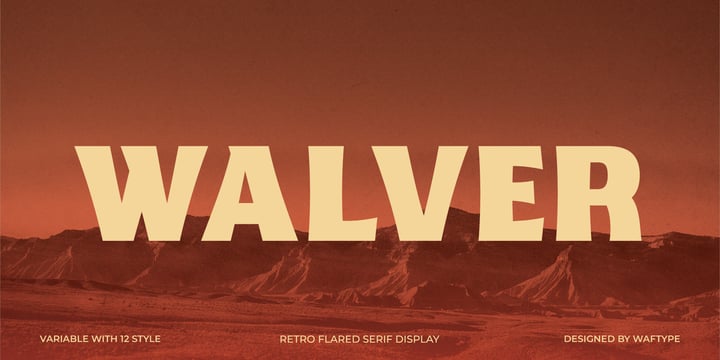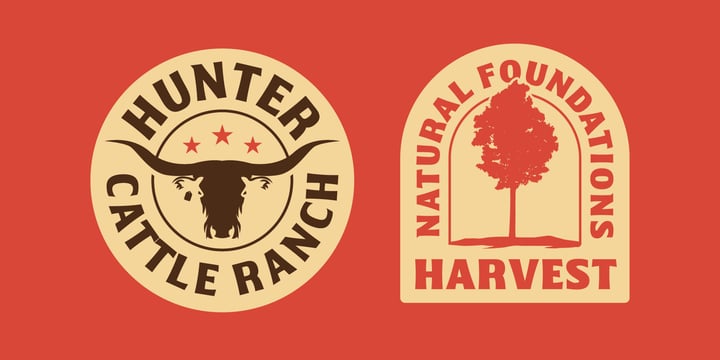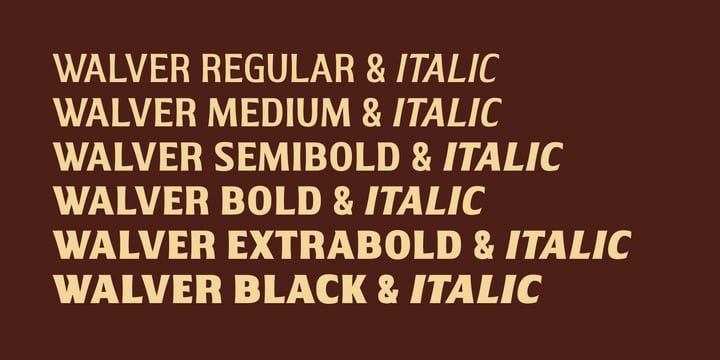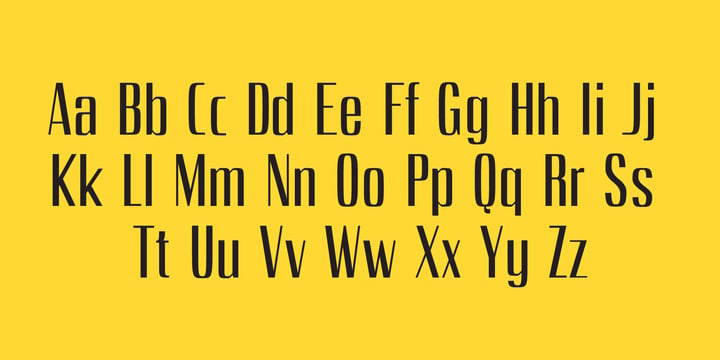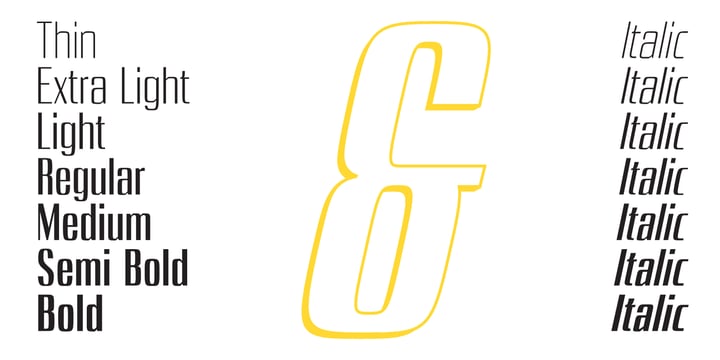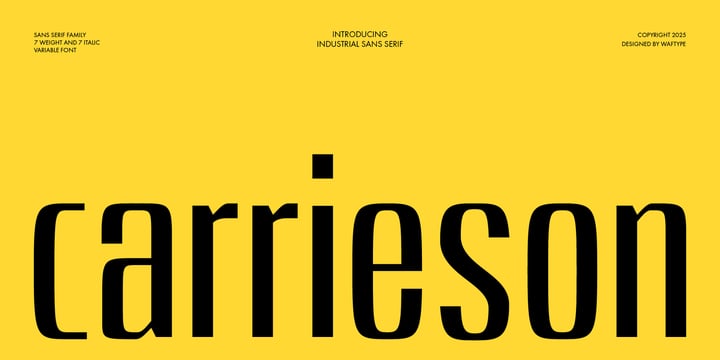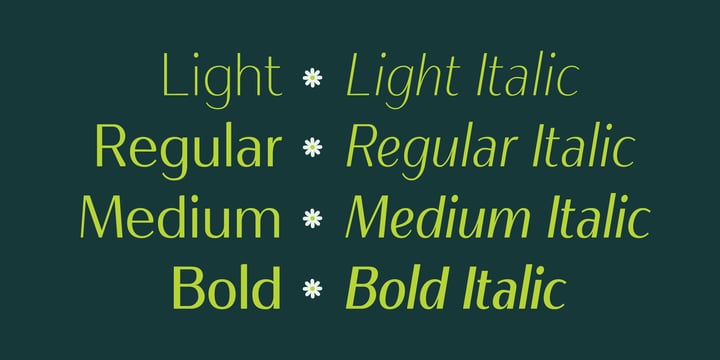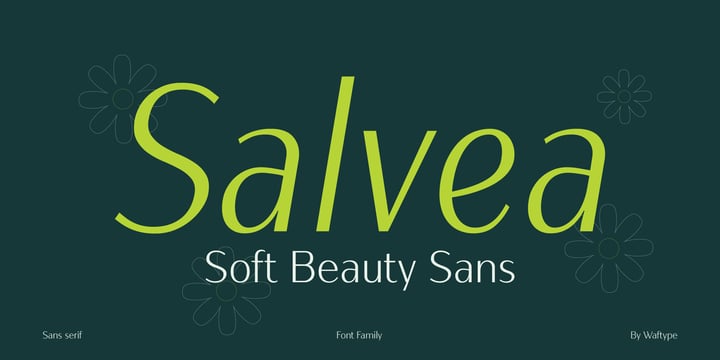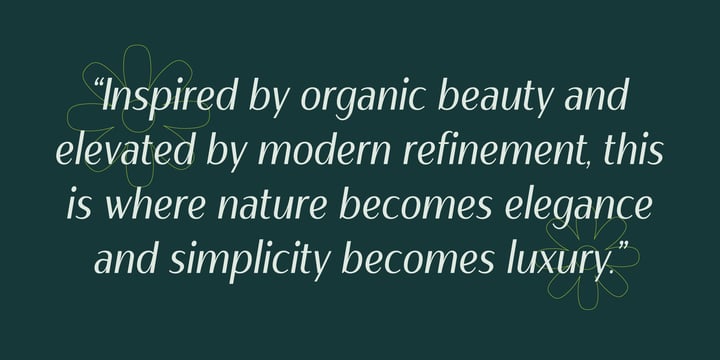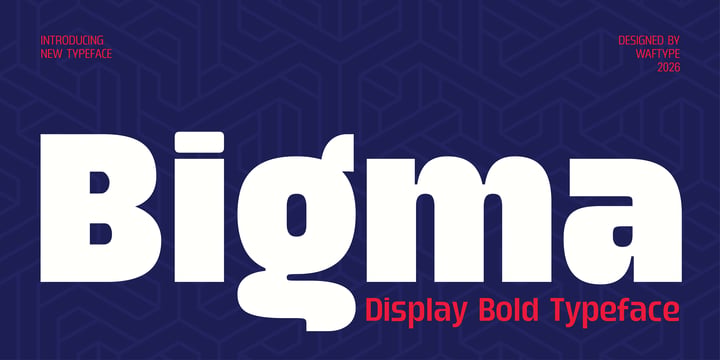
My name is Wafi Zimamul from Indonesia, the designer behind Waftype an independent, one person type foundry. After more than five years working as a freelance designer specializing in logos and book covers, I decided to take a new step into the world of type design. Creating typefaces has given me a level of creative freedom and clarity I had never experienced before.
Over the past year, I’ve dedicated myself to studying typography through courses, mentors, and continuous learning online. The process has been both challenging and deeply rewarding, and it has strengthened my commitment to building high-quality, purposeful typefaces.
Waftype is the result of that journey: a studio dedicated to crafting clear, modern, and functional typefaces designed for real-world use. My goal is to create well-built fonts that are accessible, versatile, and enjoyable for designers across all creative fields.